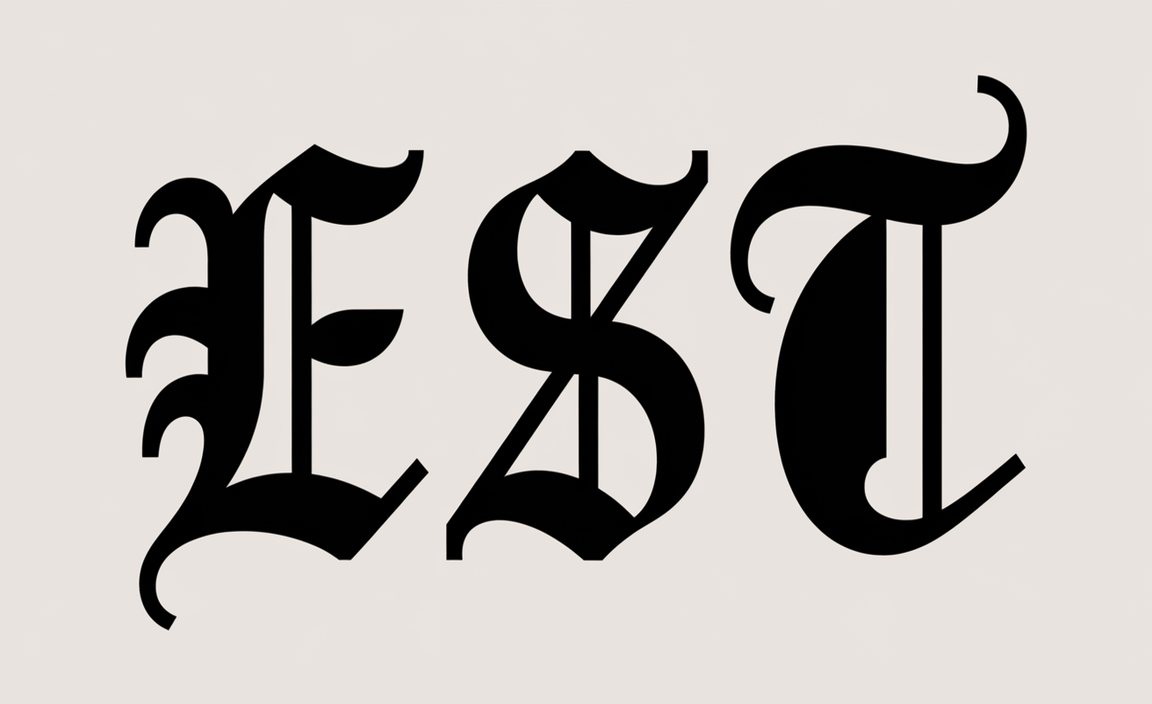
The EST tattoo font is a powerful tool to express personal stories, memories, and meaningful milestones. Whether it’s a tribute to a loved one, a special phrase, or a symbolic image, this font can carry deep emotions and connections. The style itself, rooted in Old English and Blackletter influences, offers a bold, gothic appearance that is perfect for creating impactful tattoo designs.
Craft Your Perfect Tattoo with EST Font’s Emotional Power
The EST tattoo font is more than just a set of letters; it’s a way to communicate your journey through life, relationships, and experiences. Many tattoo artists recommend this style for people who want to make a statement. Whether you’re getting the name of a family member, a tribute to a friend, or a phrase that resonates with your life, this font allows you to add detail and character to your tattoo.
Its gothic and Blackletter influences make it ideal for those who appreciate traditional styles. You might choose this font for its strength and timeless appeal. People looking for tattoos related to life events such as birth, death, or milestones in a relationship like a meaningful year or the name of a boyfriend or girlfriend—often gravitate toward the EST tattoo font.
Tattoo Ideas Using the EST Font
- Tributes: Use the EST tattoo font to honor a family member or friend. It could be a tribute to a loved one lost, with their name or an important date.
- Quotes & Phrases: Many people choose this font for meaningful phrases. Whether it’s a quote about life, love, or death, this font helps convey the message with clarity and style.
- Names: The EST tattoo font works beautifully for names, whether it’s a child’s name, a parent’s, or a loved one’s. The detail of the font adds significance to the words.
- Gothic Designs: If you love gothic art or want something that represents your unique style, this font can be paired with other gothic elements, like hearts, bars, or other imagery.
Tips for Getting the Perfect EST Tattoo
- Consider Placement: Whether you want your tattoo on your arm, back, or chest, the EST tattoo font works well for both large and small designs.
- Personalize Your Design: Use the EST font to tell your story. Add personal details like names, dates, or significant phrases to make your tattoo unique to your life.
- Black Ink: For the best effect, consider using black ink, which will highlight the strong, bold lines of the font and ensure longevity.
What Is The EST Tattoo Font?
It’s a gothic-inspired font, often used for tattoos, that emphasizes strong, bold lettering.
Can I Use The EST Font For A Quote?
Yes, the EST font works great for meaningful quotes or phrases, making them stand out with a timeless style.
Is The EST Font Suitable For Small Tattoos?
Yes, it works well for both large and small tattoos, especially when the design includes names or short phrases.
Can This Font Be Paired With Other Elements?
Absolutely! You can pair the EST font with images like hearts, bars, or other gothic designs for added depth.
Is This Font Only For Men?
No, the EST tattoo font is versatile and can be used by both men and women.